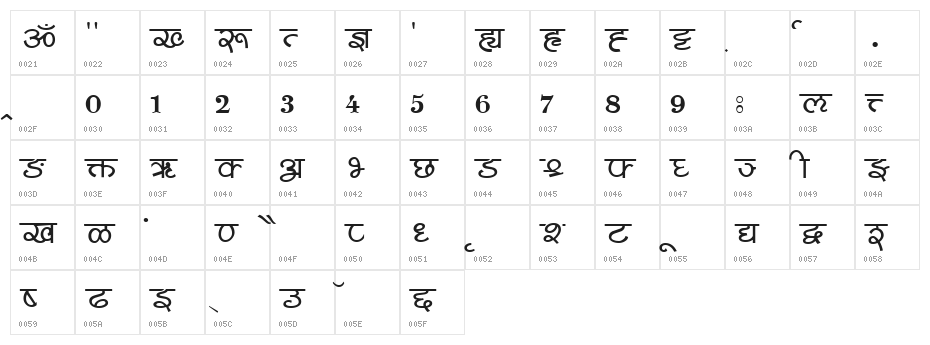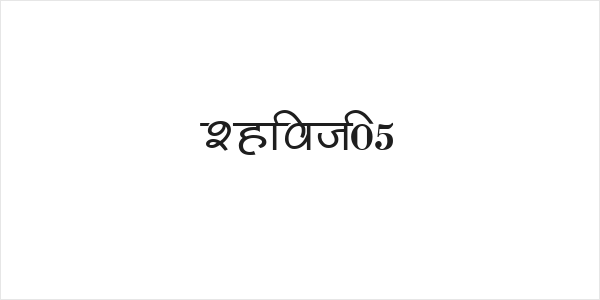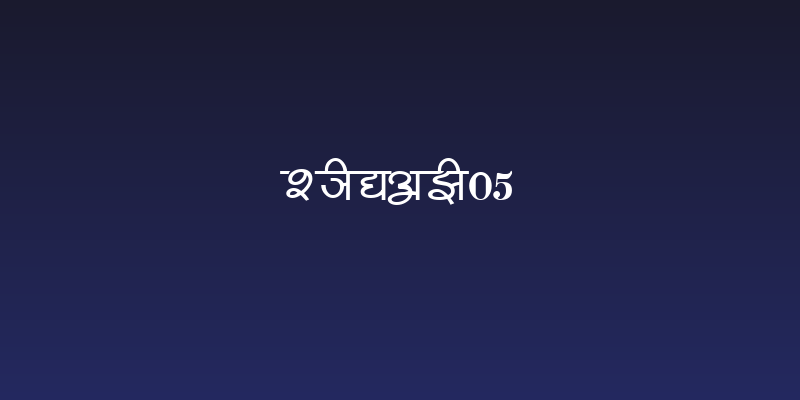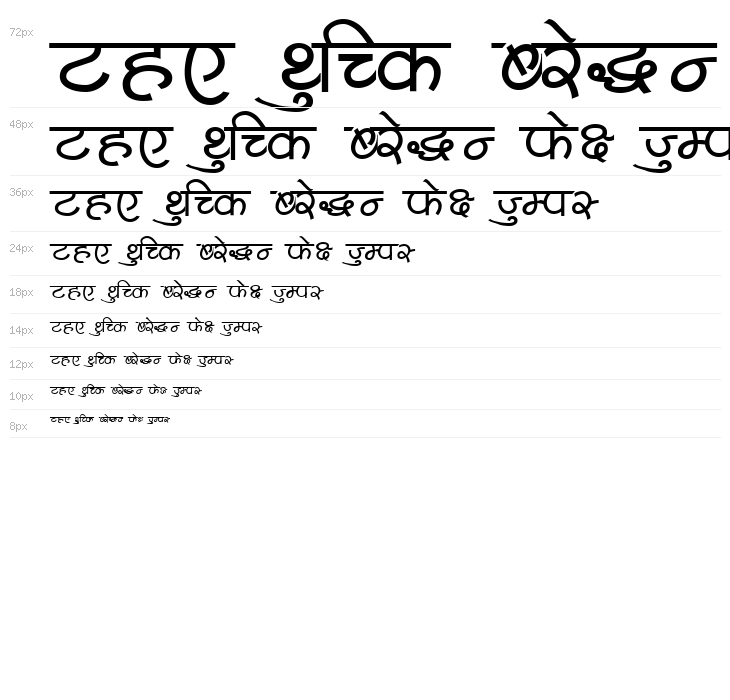
Shivaji05 Font
Shivaji05 Description
This font features a traditional Devanagari script style, characterized by its intricate and flowing letterforms. The characters are bold and well-defined, with a consistent stroke width that gives them a strong presence. The script includes a horizontal line that connects the top of each character, a hallmark of Devanagari writing. The numerals are styled to match the script, maintaining the same boldness and clarity. This font is suitable for projects that require a classic and culturally rich appearance, such as cultural publications, educational materials, or artistic projects that emphasize traditional Indian aesthetics.
| Overall Style | Classic |
| Use Case | Headlines, Cultural publications, Educational materials |
| Proposed Projects | Ideal for cultural publications, educational materials, and artistic projects emphasizing traditional Indian aesthetics. |